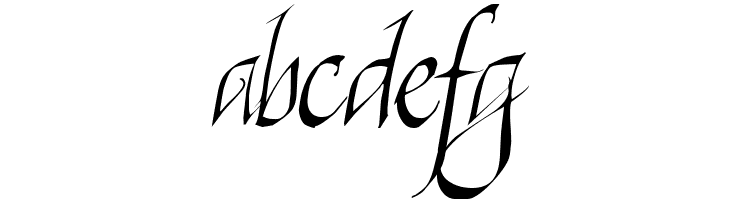
Brader John Font
- Font: Brader John
( Fonts by Rob Dobi - Toxic Type - www.dobi.nu )
A dynamic, calligraphic font with sharp, angular strokes and high contrast.